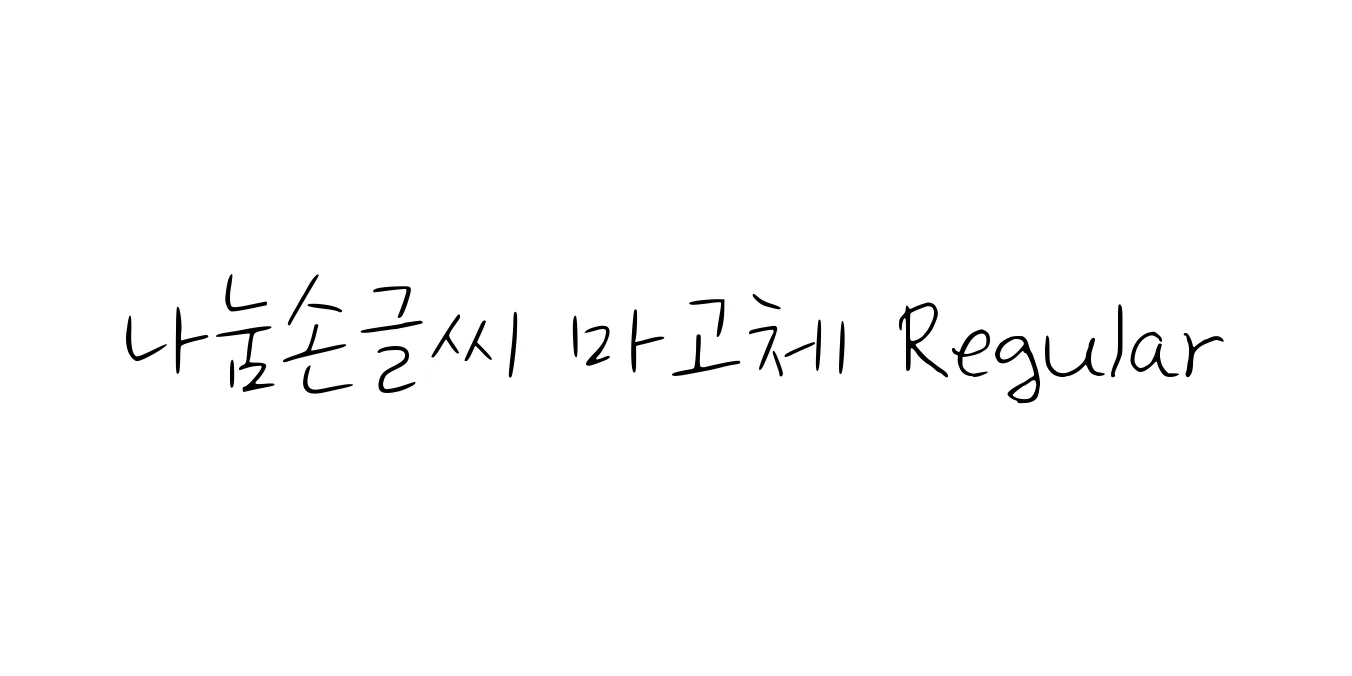
나눔손글씨 마고체 Regular
Designed by Naver Clova AI (Inspired by participant Mago)
나눔손글씨 마고체 (Nanum Mago) was created as part of the 2019 Naver Clova AI handwriting project, which aimed to preserve the uniqueness of human penmanship through advanced technology. This font is based on a real person's handwriting, capturing a specific rhythm and organic flow that reflects a warm, approachable personality. By utilizing AI, the nuances of the original strokes were translated into a high-quality digital typeface that maintains consistency across various weights and characters.
The font is characterized by its delicate and free-spirited strokes, offering a refreshing departure from standard mechanical fonts. It excels in contexts where a human touch is required, providing a sense of comfort and sincerity to the reader. As part of the Nanum collection, it supports a wide range of Korean characters, making it a versatile tool for designers looking to incorporate a personalized, hand-drawn aesthetic into their digital and print media projects.
나눔손글씨 마고체 Regular Best Uses
Ideal for digital planners and diary apps to give a handwritten feel.
Perfect for creating intimate and friendly Instagram stories or quotes.
Great for headers in lifestyle blogs or personal portfolios.
Adds a sincere, personal touch to digital invitations and thank-you notes.